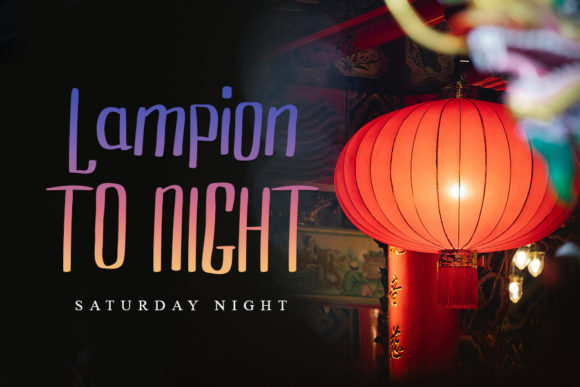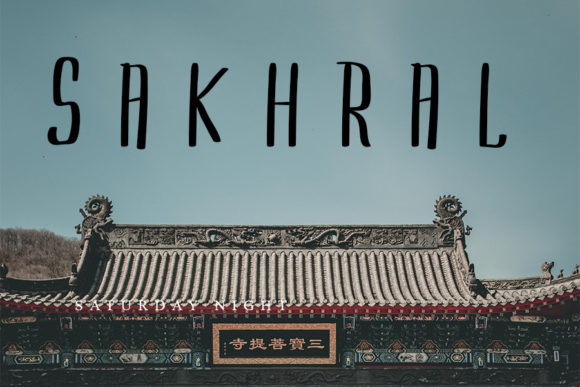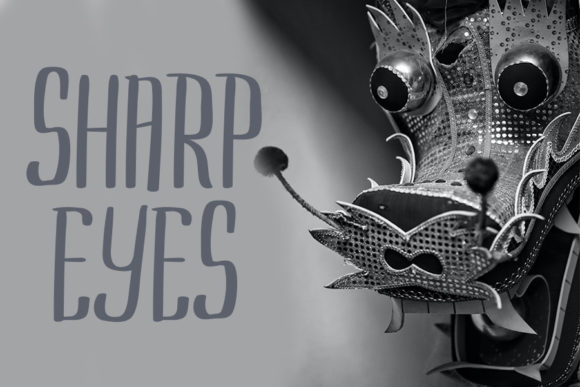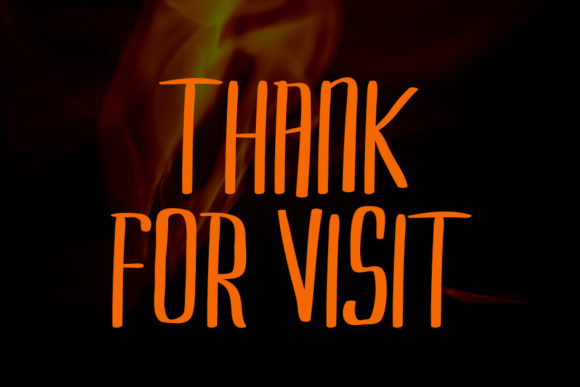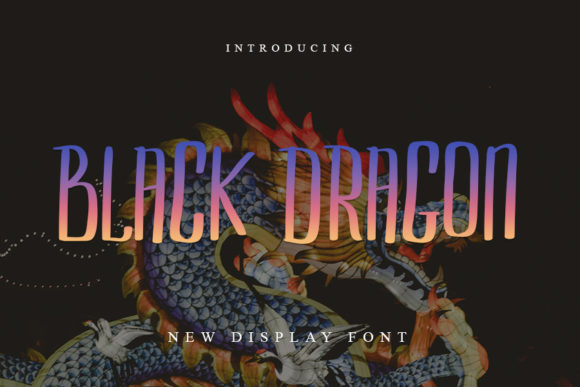
Unleash Your Creativity with Black Dragon Font
Are you tired of using the same old fonts in your designs? Look no further than the Black Dragon Font, a fun and versatile script font that’s sure to brighten up any project. With its neat style and endless variations, this cool font is perfect for designers and crafters looking to add a touch of personality to their work.
What is Black Dragon Font?
Black Dragon Font is a script font that features a unique and stylish design. Its flexibility and neat style make it perfect for a wide range of projects, from creative crafts to digital designs. The font’s sleek lines and smooth curves give it a modern and sophisticated look that’s sure to impress.
Key Features of Black Dragon Font
- Flexibility: Black Dragon Font is highly versatile and can be used in a variety of contexts, from titles and headings to body text and quotes.
- Neat Style: The font’s sleek design and smooth curves make it easy to read and visually appealing.
- Endless Variations: With Black Dragon Font, you can experiment with different styles, sizes, and colors to create unique and eye-catching designs.
Why Use Black Dragon Font?
So why choose Black Dragon Font for your next project? Here are just a few reasons:
- Adds Personality: Black Dragon Font is a fun and creative font that’s sure to add a touch of personality to your designs.
- Easy to Read: The font’s neat style and clear lines make it easy to read, even at small sizes.
- Versatile: Black Dragon Font can be used in a wide range of projects, from digital designs to print materials.
How to Use Black Dragon Font
Using Black Dragon Font is easy! Here are a few tips to get you started:
- Experiment with Sizes: Try using Black Dragon Font in different sizes to create visual interest and hierarchy in your designs.
- Play with Colors: Experiment with different colors and textures to add depth and personality to your designs.
- Mix and Match: Combine Black Dragon Font with other fonts and design elements to create unique and eye-catching designs.
Design Ideas with Black Dragon Font
Here are a few design ideas to get you started with Black Dragon Font:
- Party Invitations: Use Black Dragon Font to create fun and festive party invitations that set the tone for a memorable event.
- Social Media Graphics: Add a touch of personality to your social media graphics with Black Dragon Font, perfect for creating eye-catching posts and stories.
- Crafting Projects: Use Black Dragon Font to add a personal touch to your crafting projects, from scrapbooking to DIY signs.
In conclusion, Black Dragon Font is a fun and versatile script font that’s perfect for designers and crafters looking to add a touch of personality to their work. With its neat style, flexibility, and endless variations, this cool font is sure to brighten up any project. So why not give it a try and see what amazing designs you can create?